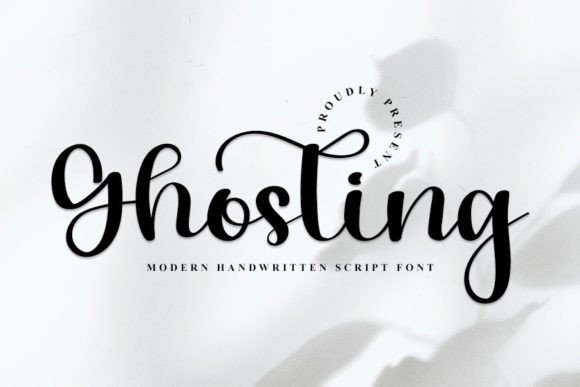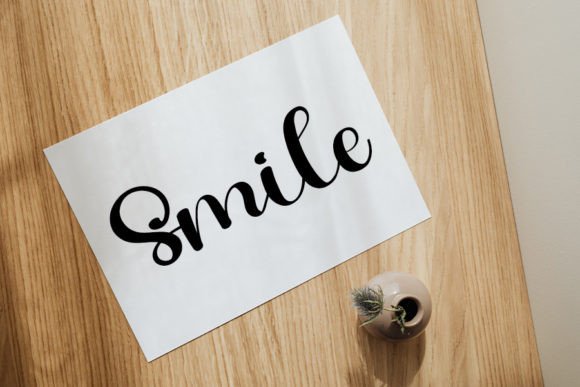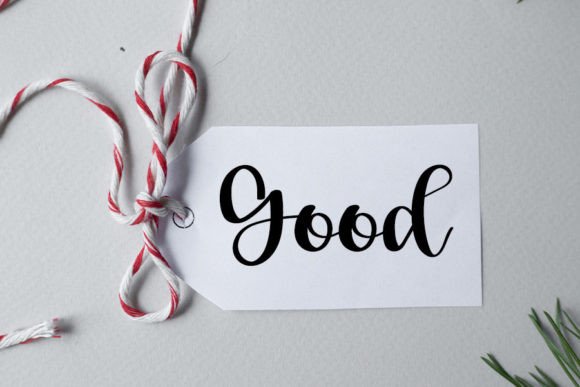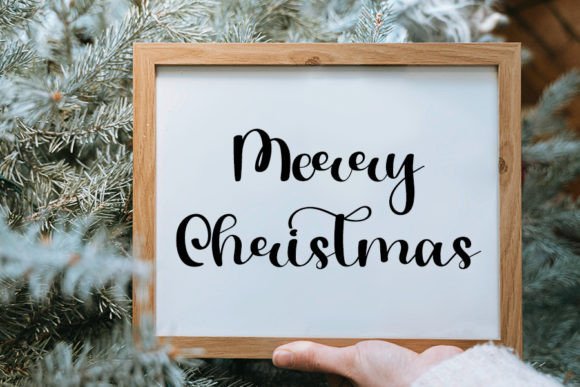
Ghosting Font
About Ghosting Font
Ghosting is a neat and beautiful handwritten font described by an elegant touch, perfect for your favorite projects. Fall in love with its incredibly distinct and timeless style, and use it to create spectacular designs!